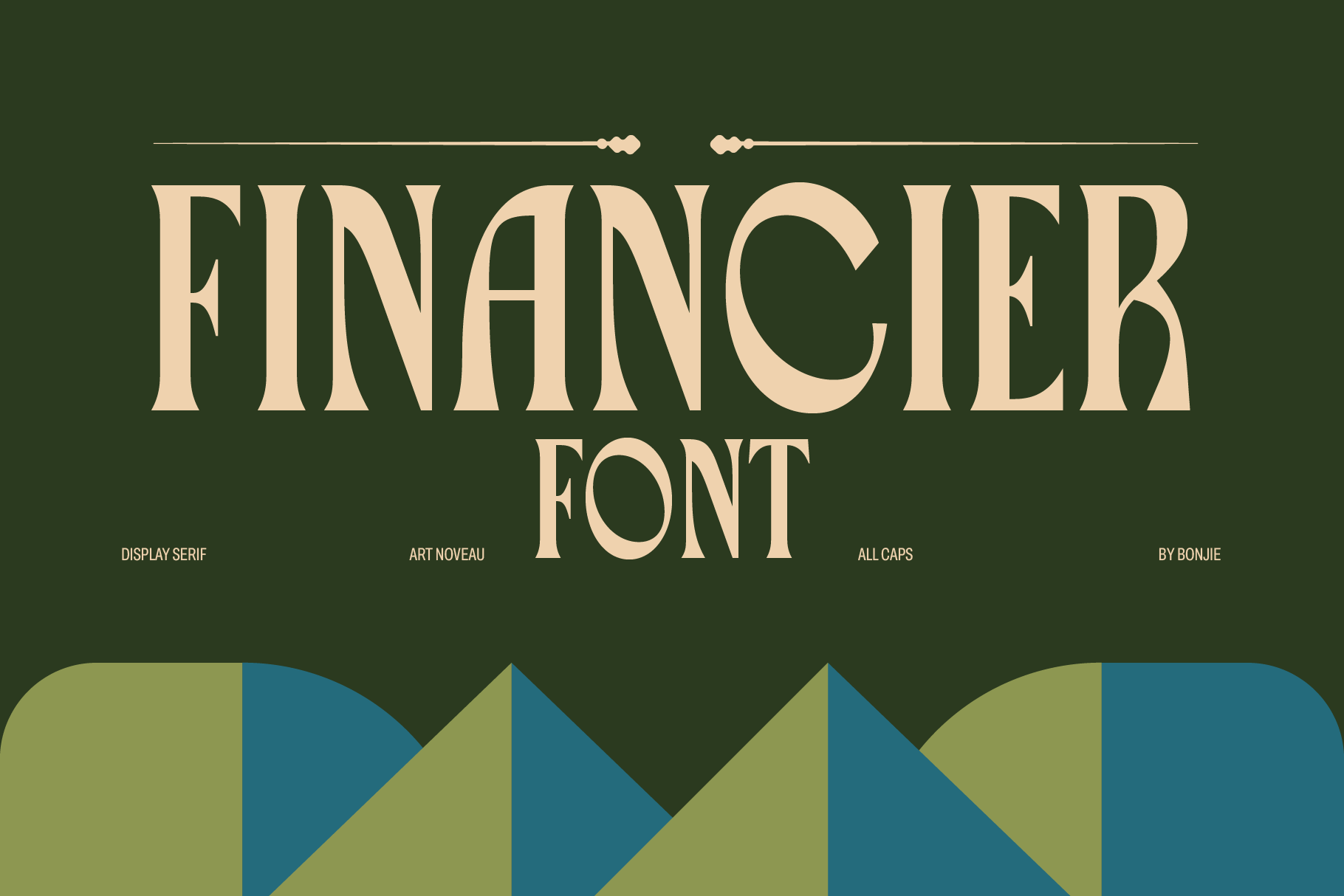
Financier Font
FINANCIER Font is a high-contrast, all-caps display serif typeface with strong Art Nouveau influences. Sharp, sculptural curves letters like C, G, and O feature bold, sweeping curves that evoke vintage signage or fashion magazines.
FINANCIER is designed for display use, especially where visual impact and elegance are key. Perfect for:
Luxury Branding (perfume, fashion, jewelry)
Editorial Design (magazine headlines, feature intros)
Posters and Art Prints
Boutique Logos
High-End Product Packaging
Book Covers (especially for historical, classic, or art-themed works)
Not Suited For Due to its decorative nature and all-caps design, it is not recommended for body text or UI elements requiring high legibility at small sizes.